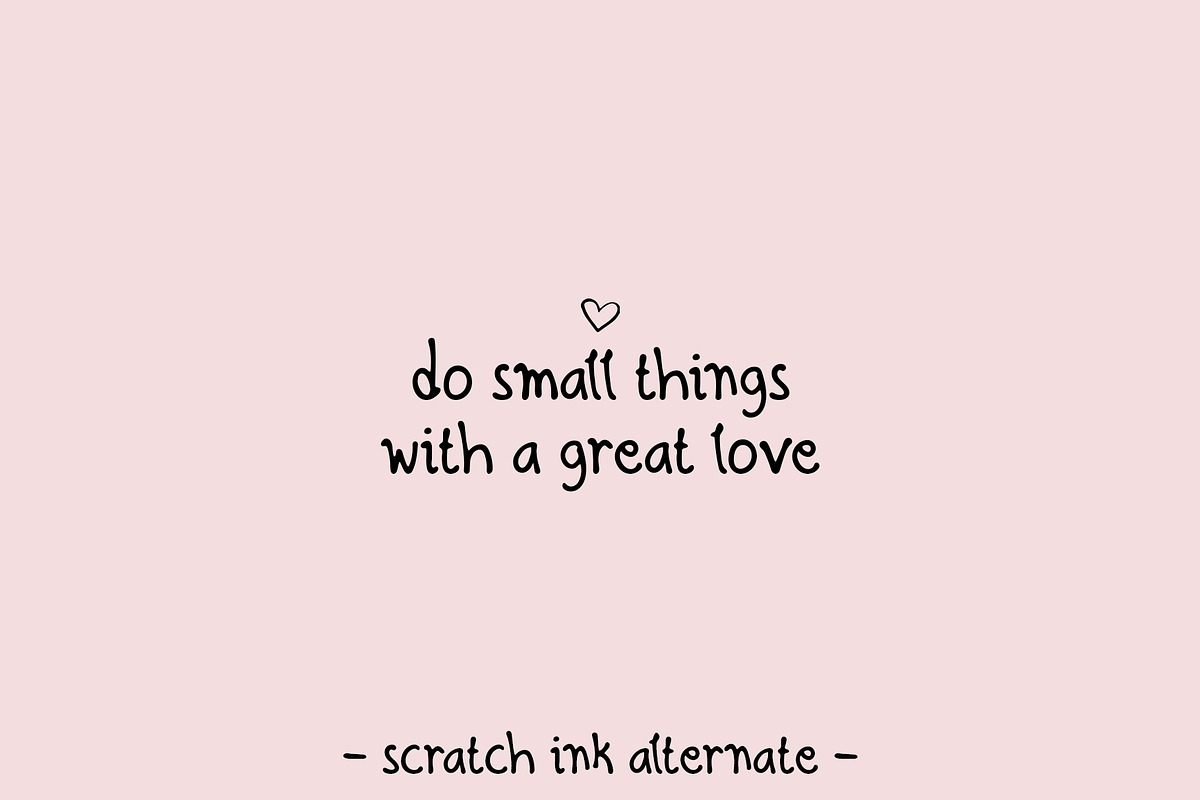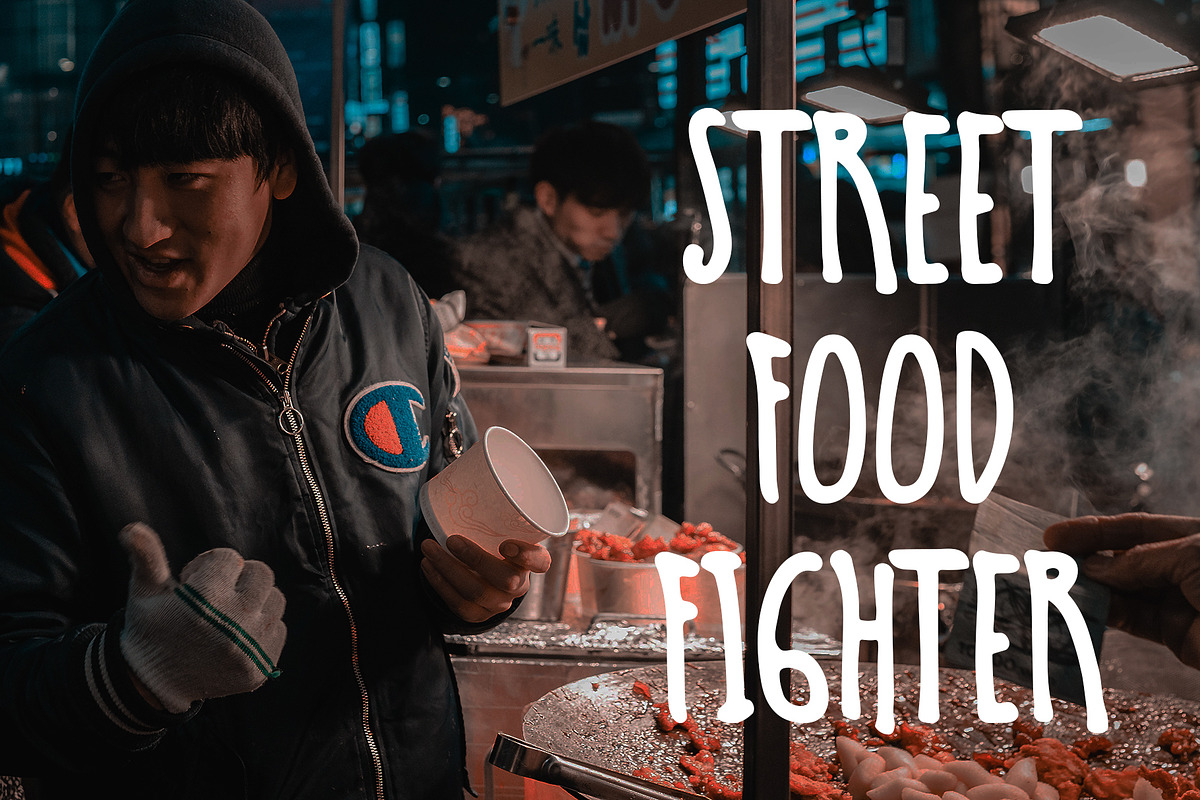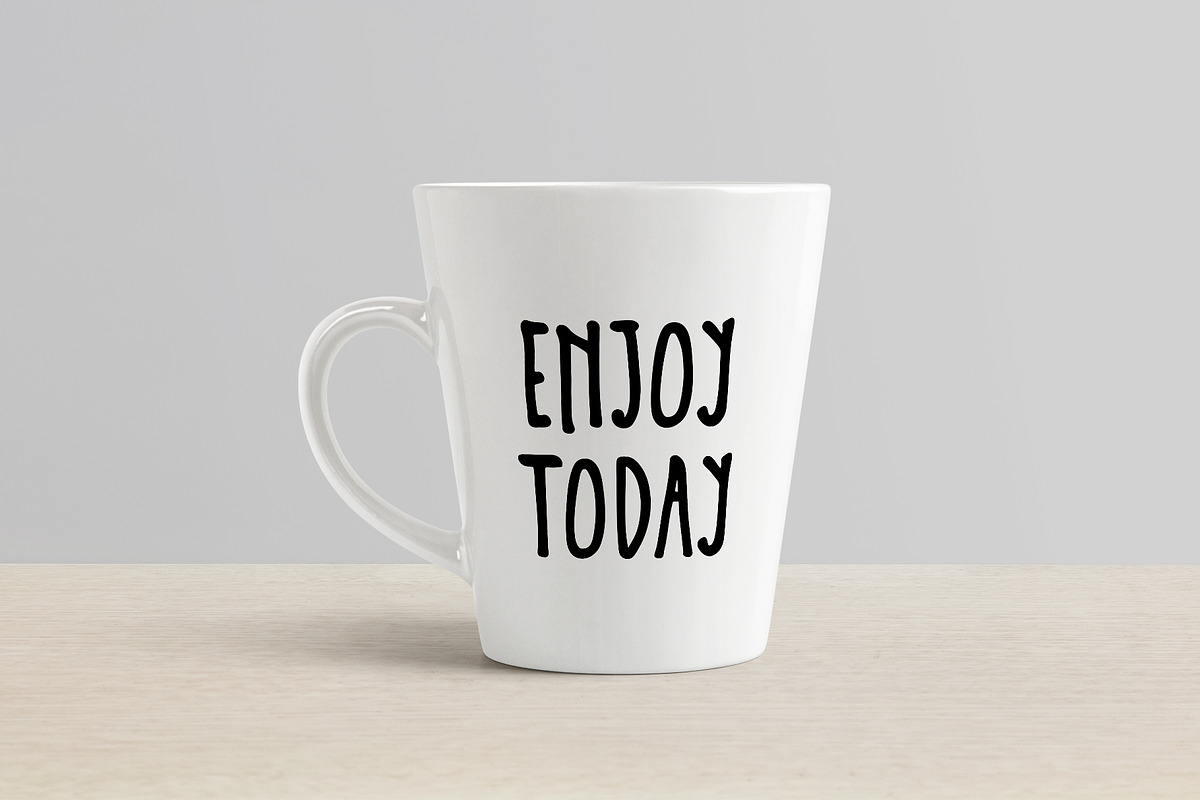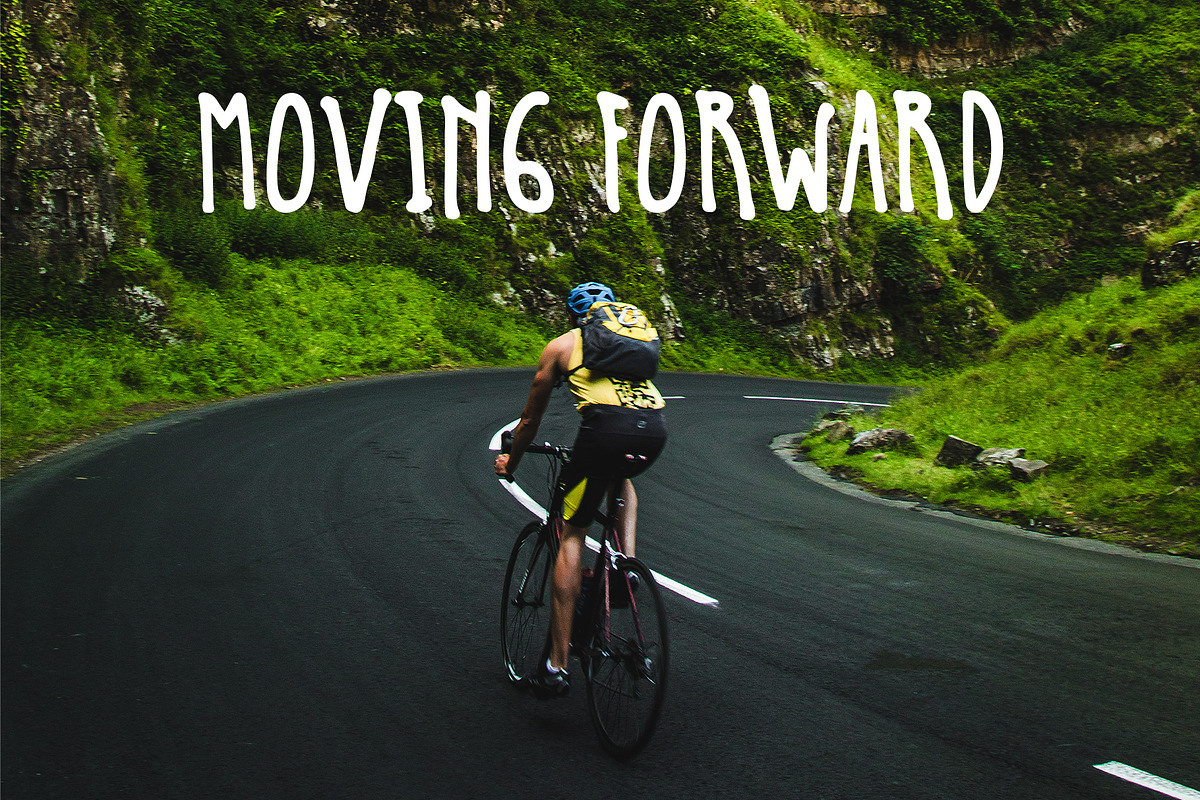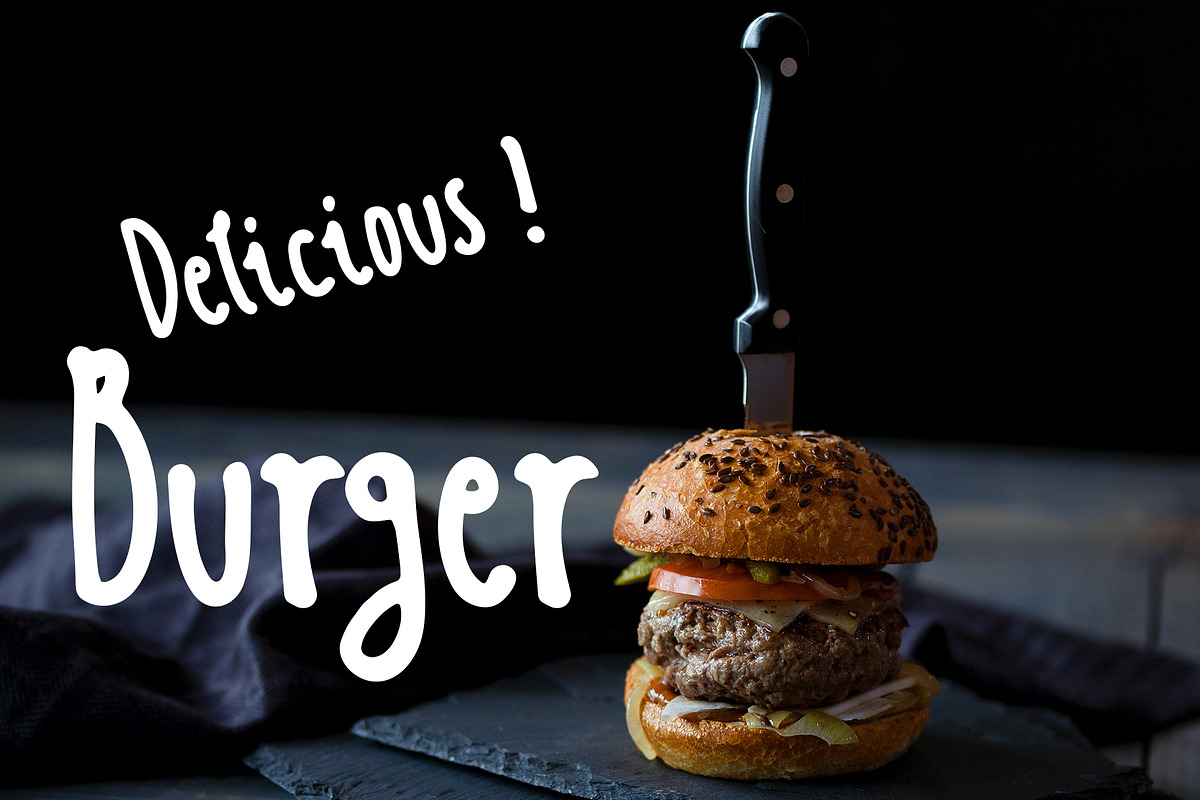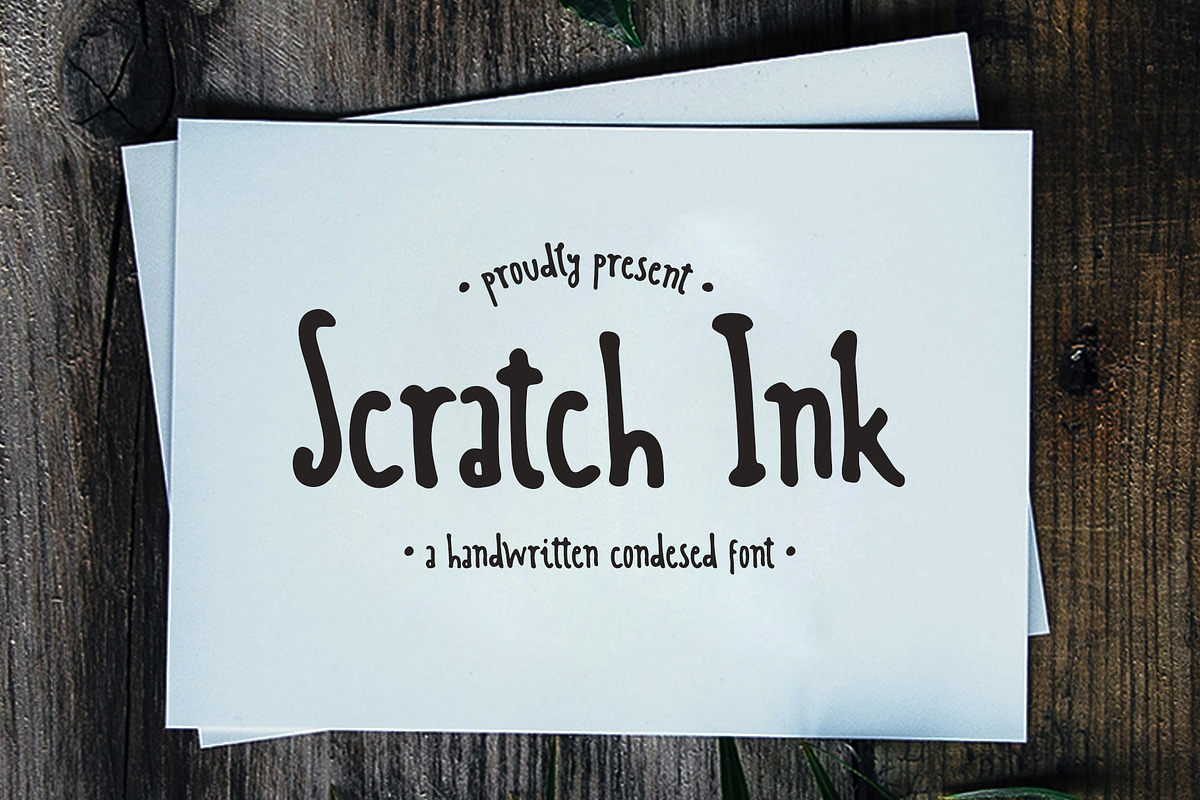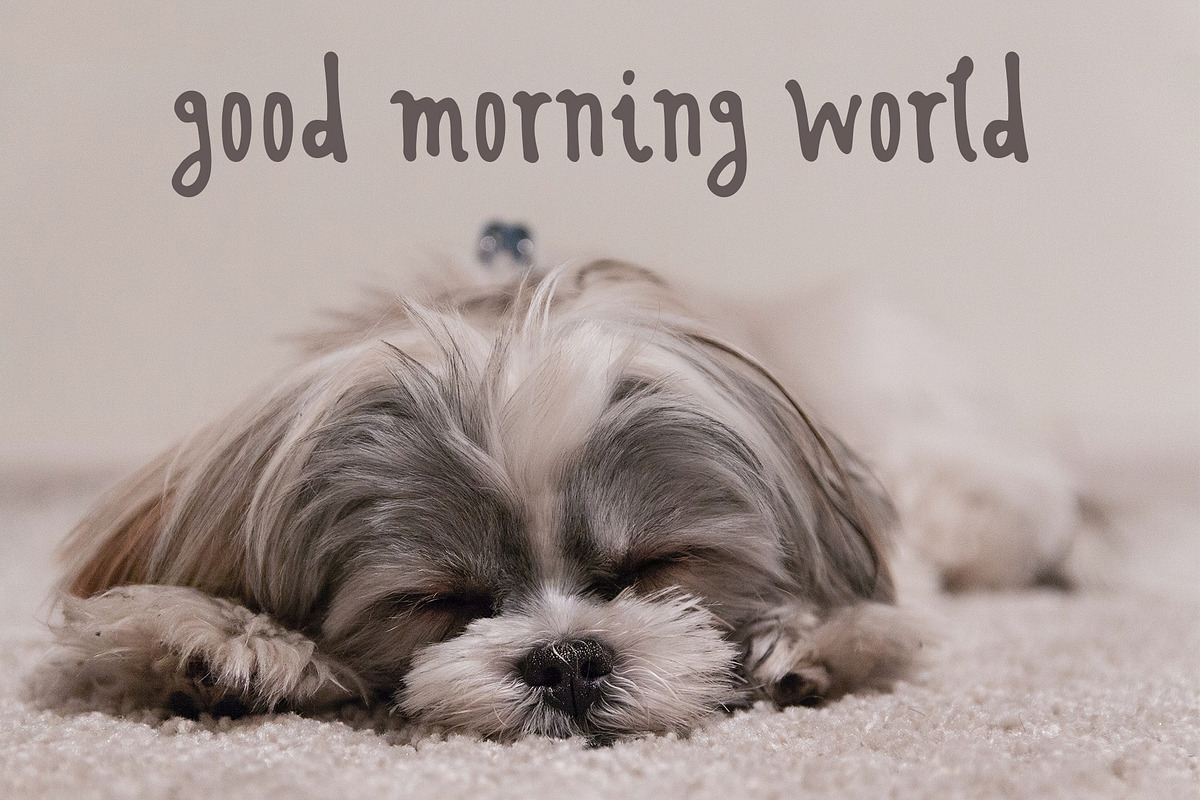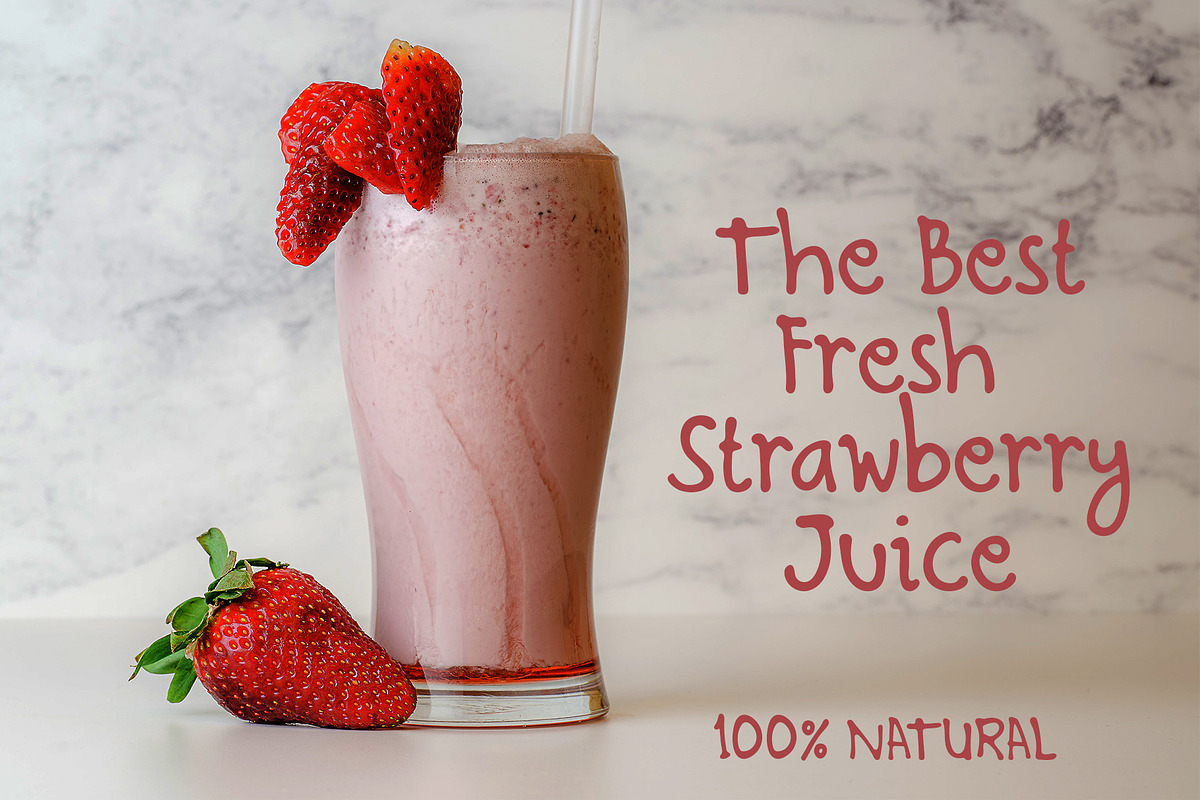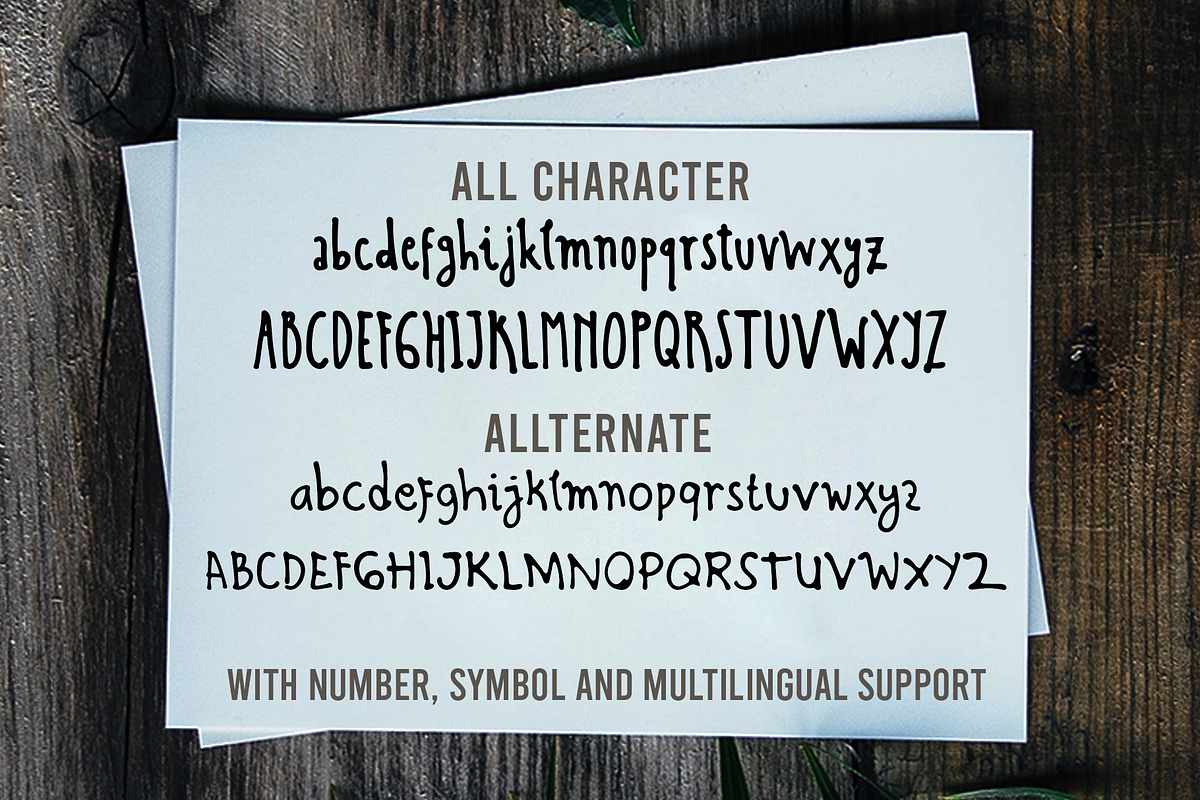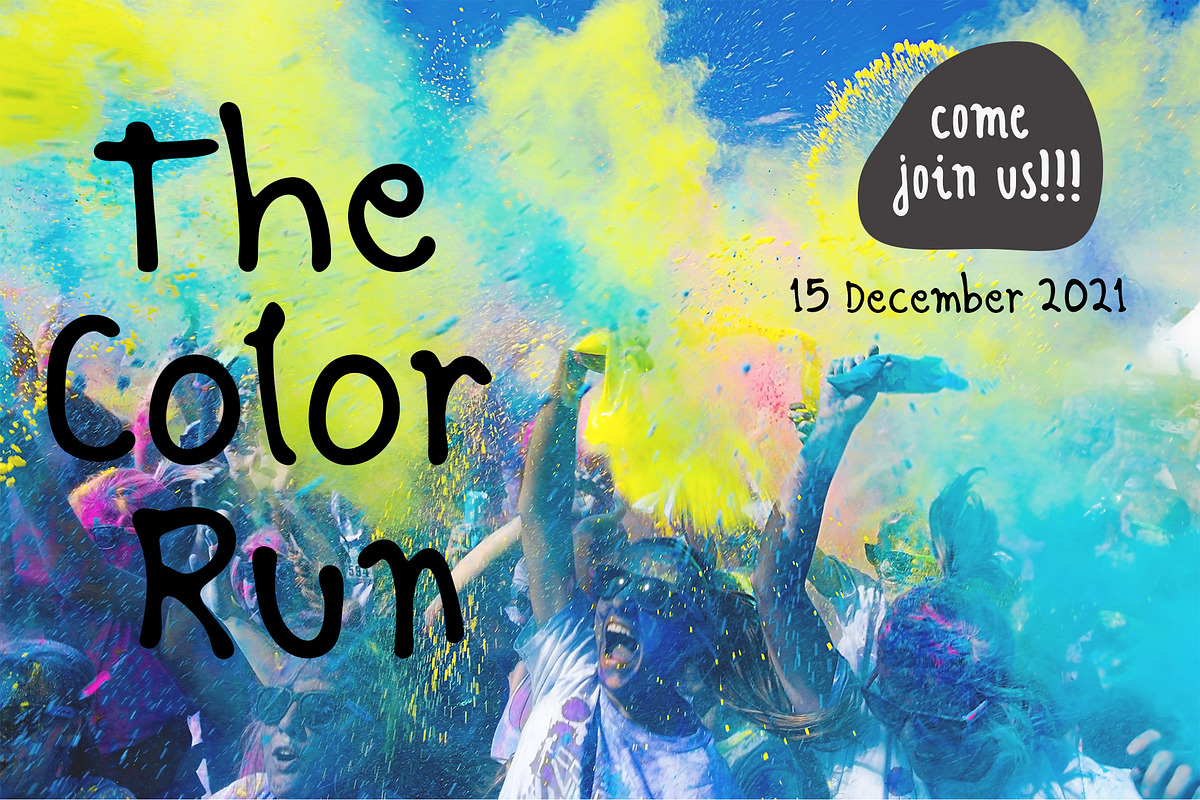
Scratch Ink - A Handwritten Condesed
Scratch Ink is skinny and a clean handwritten condensed sans-serif. This condensed sans-serif will look so fun on your cards & invites, cover book and it works perfectly when pairing with other fonts.
Scratch Ink is awesome for branding projects, logo, wedding designs, social media posts, advertisements, product packaging, product designs, label, photography, watermark, invitation, stationery and any projects that need handwriting taste.